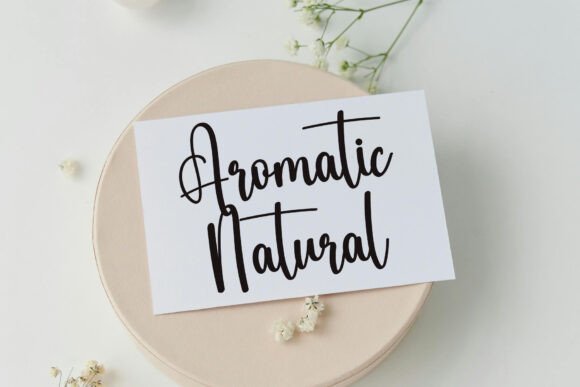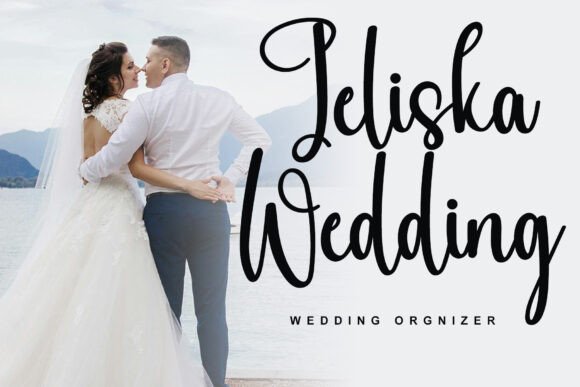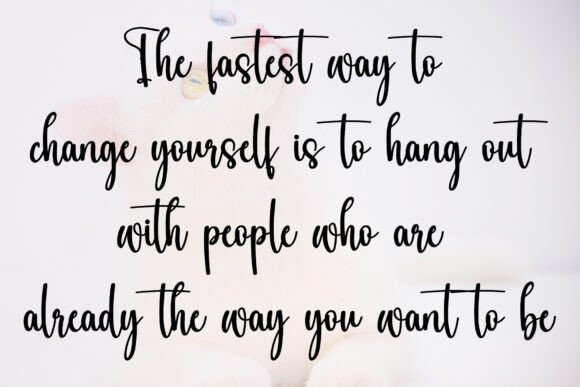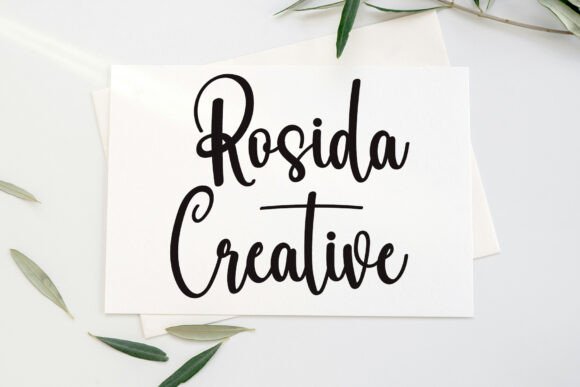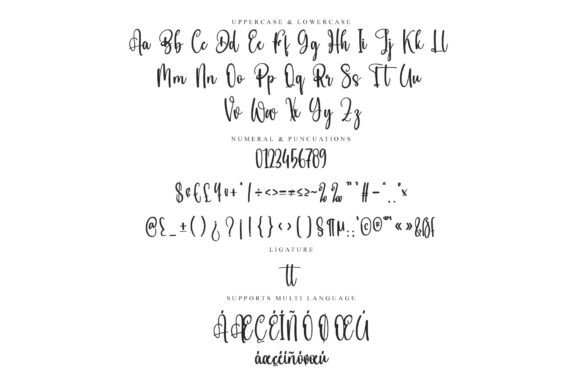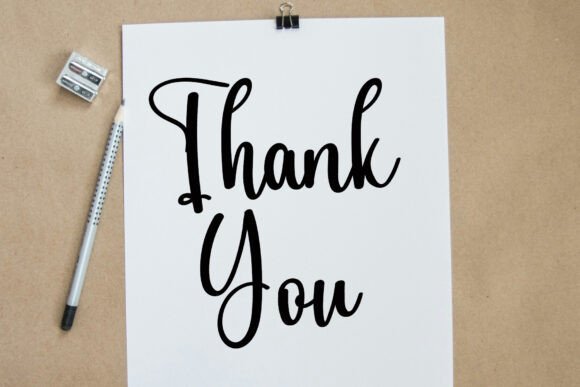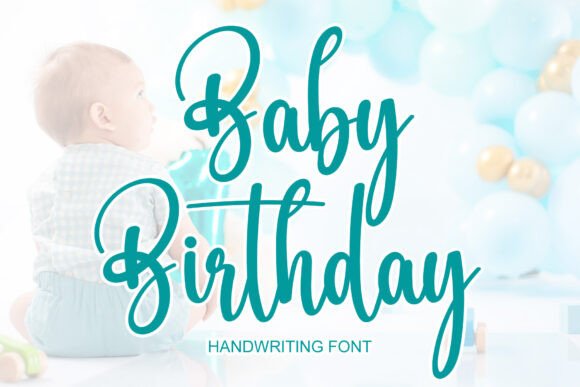
Baby Birthday Font: A Festive Typeface for Joyous Celebrations
The joy of celebrating a baby’s birthday is a special occasion that deserves a unique and festive touch. When it comes to creating designs that capture the spirit of this joyous celebration, the right font can make all the difference. That’s where the Baby Birthday font comes in – a merry and decorative typeface that’s perfect for adding a touch of enchantment to your designs.
What is Baby Birthday Font?
Baby Birthday font is a carefully crafted typeface that’s designed to evoke the magic and wonder of a baby’s birthday celebration. With its whimsical flair and decorative elements, this font is sure to bring a cheerful and nostalgic ambiance to your words. Whether you’re creating greeting cards, gift tags, or holiday-themed projects, Baby Birthday font is the perfect choice for designers and crafters looking to add a personal touch to their designs.
Key Features of Baby Birthday Font
- Decorative Elements: Baby Birthday font features intricate decorative elements that add a touch of elegance and sophistication to your designs.
- Whimsical Flair: The font’s whimsical flair makes it perfect for creating playful and eye-catching designs that are sure to delight.
- Festive Spirit: Baby Birthday font captures the spirit of the holiday season, making it perfect for creating festive and merry designs.
- Versatile: This font is versatile and can be used for a variety of design projects, including greeting cards, gift tags, and holiday-themed projects.
Why Choose Baby Birthday Font?
There are many reasons why Baby Birthday font stands out from other typefaces. Here are a few:
- Unique and Eye-Catching: Baby Birthday font is a unique and eye-catching typeface that’s sure to grab attention.
- Easy to Read: Despite its decorative elements, Baby Birthday font is easy to read, making it perfect for creating designs that are both beautiful and functional.
- Customizable: This font can be customized to fit your design needs, allowing you to create unique and personalized designs.
How to Use Baby Birthday Font
Using Baby Birthday font is easy and straightforward. Here are a few tips to get you started:
- Pair with Other Fonts: Pair Baby Birthday font with other fonts to create a unique and visually appealing design.
- Use for Headings and Titles: Use Baby Birthday font for headings and titles to add a touch of elegance and sophistication to your designs.
Design Ideas Using Baby Birthday Font
- Greeting Cards: Create festive and merry greeting cards for baby’s birthday celebrations.
- Gift Tags: Design personalized gift tags that feature the Baby Birthday font.
- Holiday-Themed Projects: Use Baby Birthday font to create holiday-themed projects, such as Christmas cards, Halloween decorations, and Easter egg designs.
In conclusion, Baby Birthday font is a festive and merry typeface that’s perfect for designers and crafters looking to add a touch of enchantment to their designs. With its decorative elements, whimsical flair, and versatile design, this font is sure to bring a cheerful and nostalgic ambiance to your words. Whether you’re creating greeting cards, gift tags, or holiday-themed projects, Baby Birthday font is the perfect choice for your next design project.